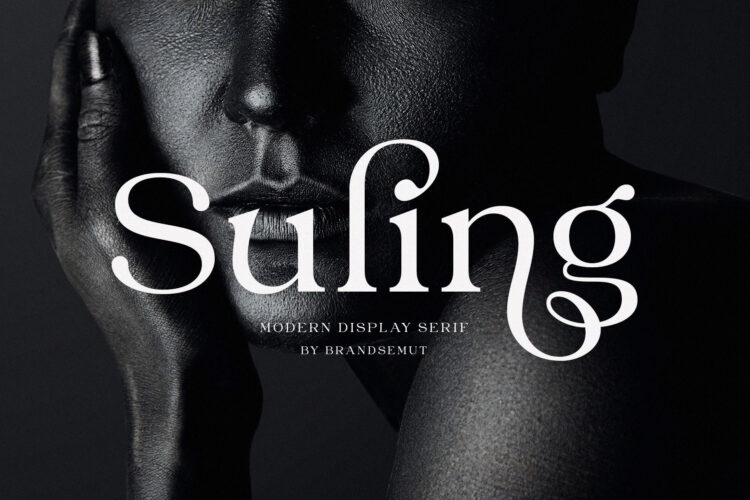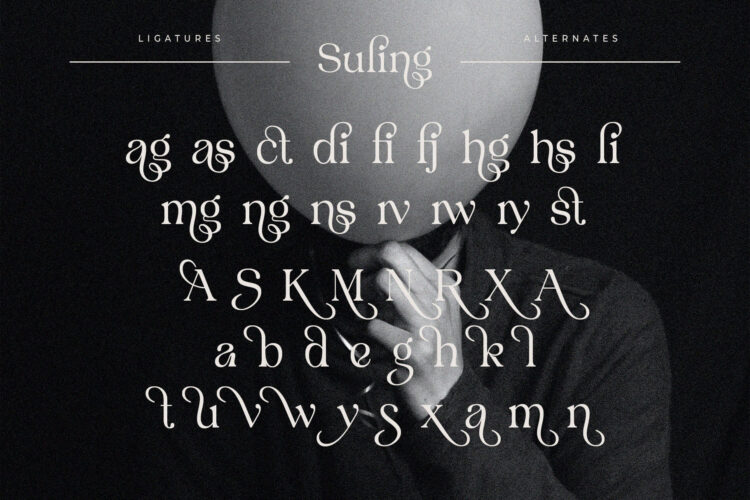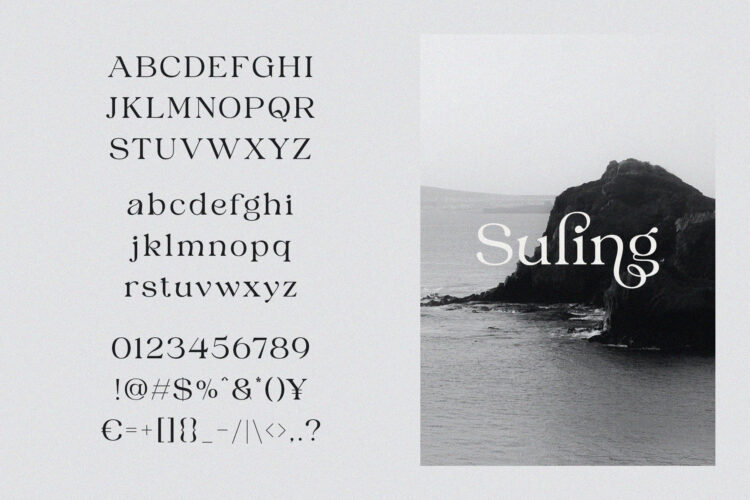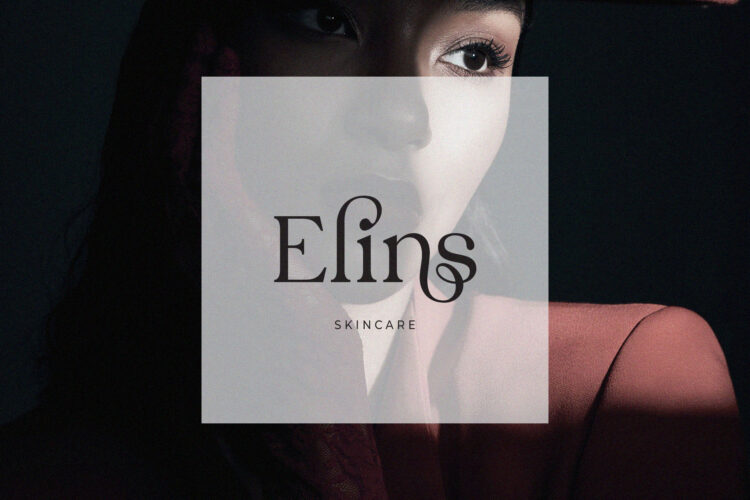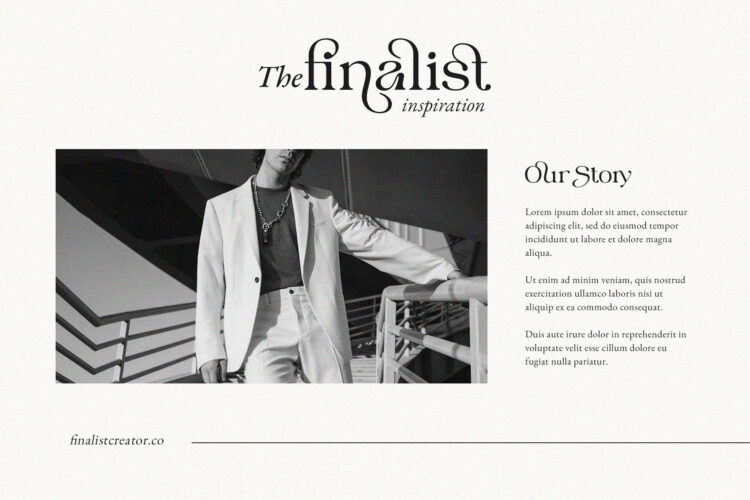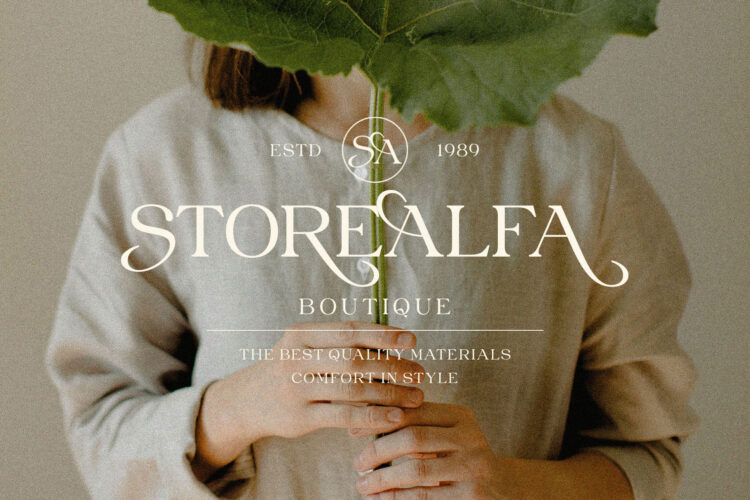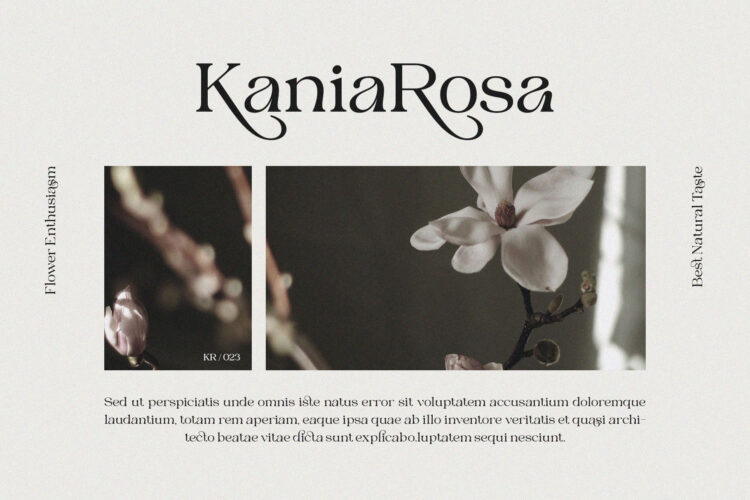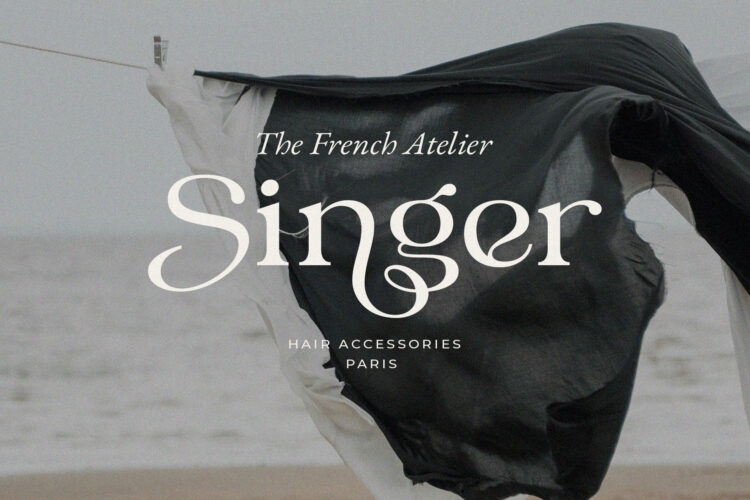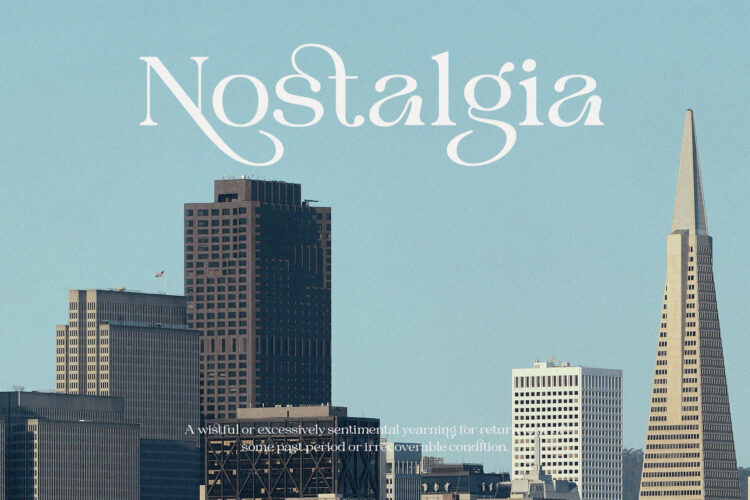
Introducing Suling Modern Display Serif.
Suling is a elegant and modern display serif, best used as a display for headings, logos, branding, magazines, product packaging and invitations. Suling equipped with Ligature and many Alternates and come with clean lines and smooth curves give any project an extra touch of class.